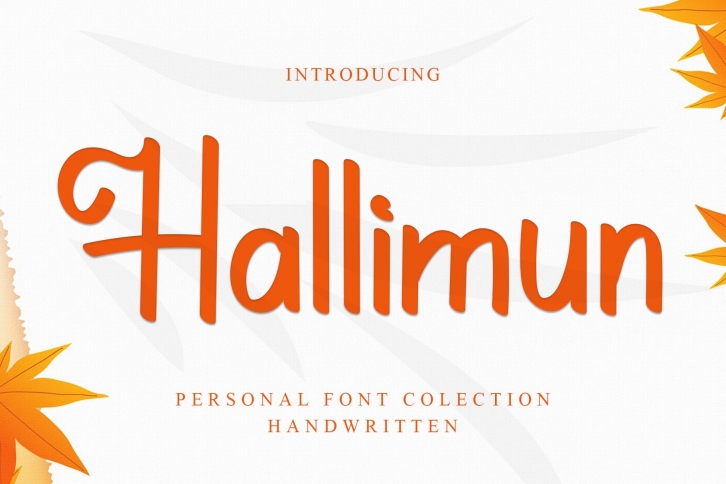
Hallimun is a gorgeous font that was realeased on February 26, 2022. The font can be used in many style contexts and design environments. Perfect for invitations, magazines, websites, logos, and more! It was designed by Giart Studios and the file size is 2.34 MB. Thanks for checking out this font!